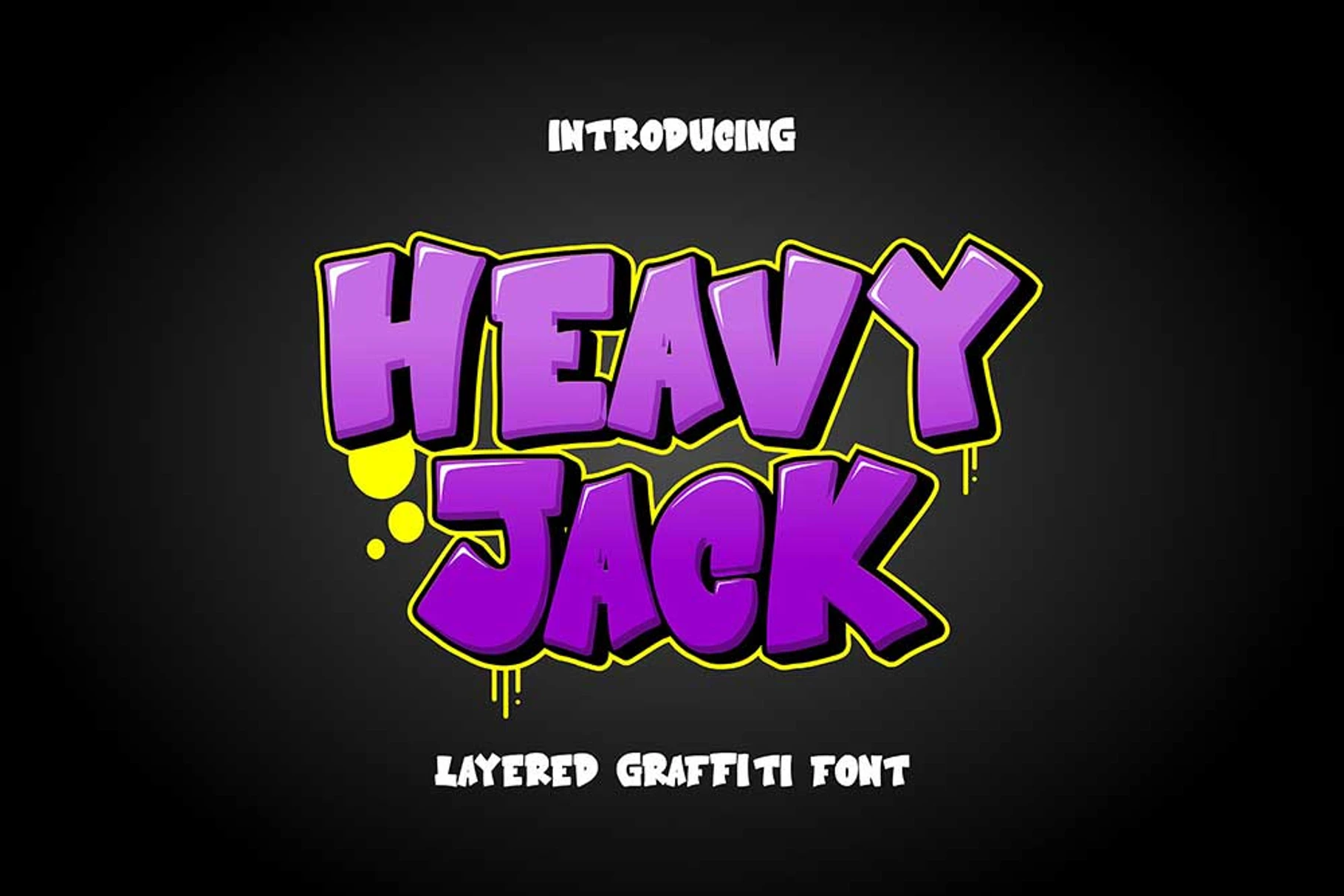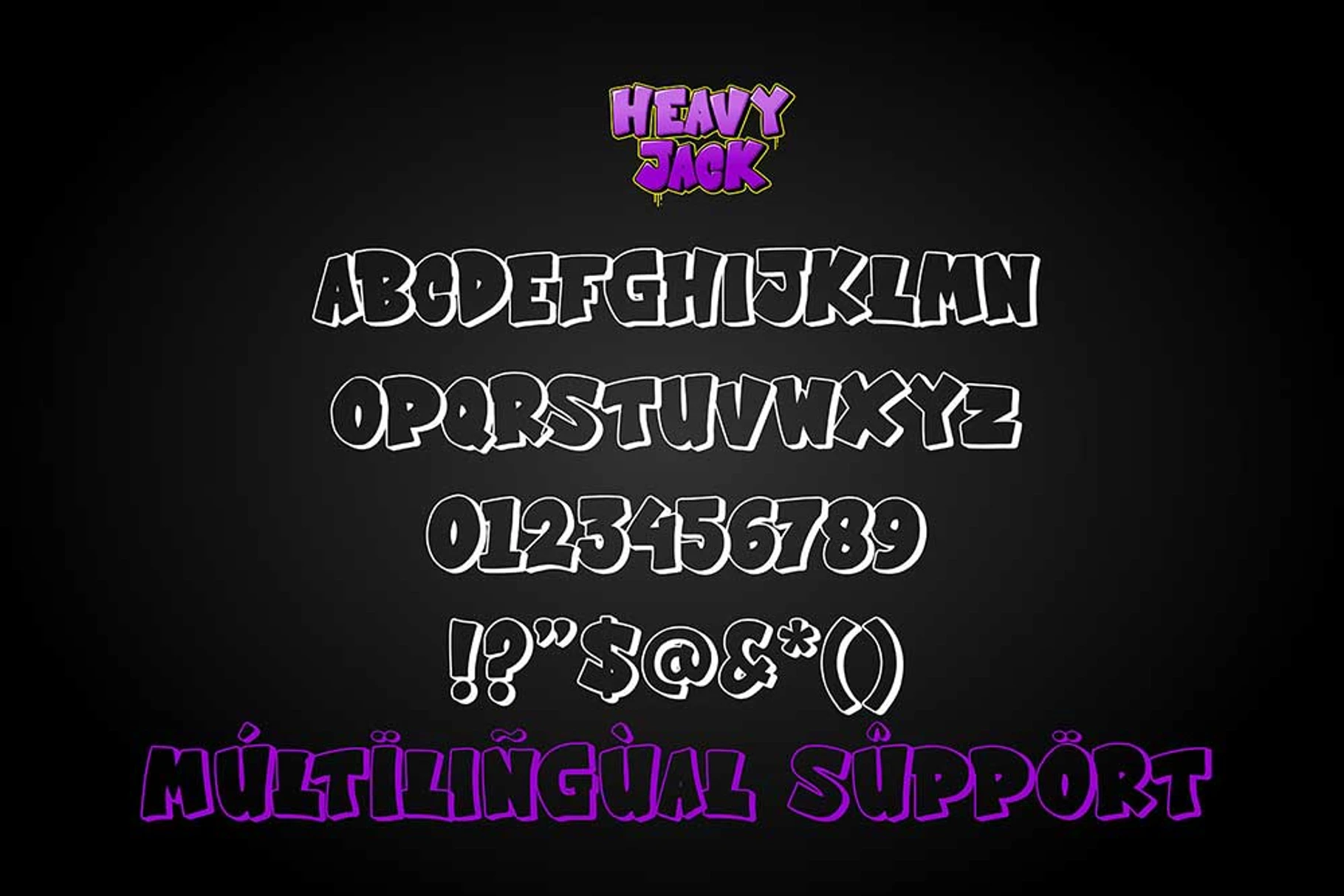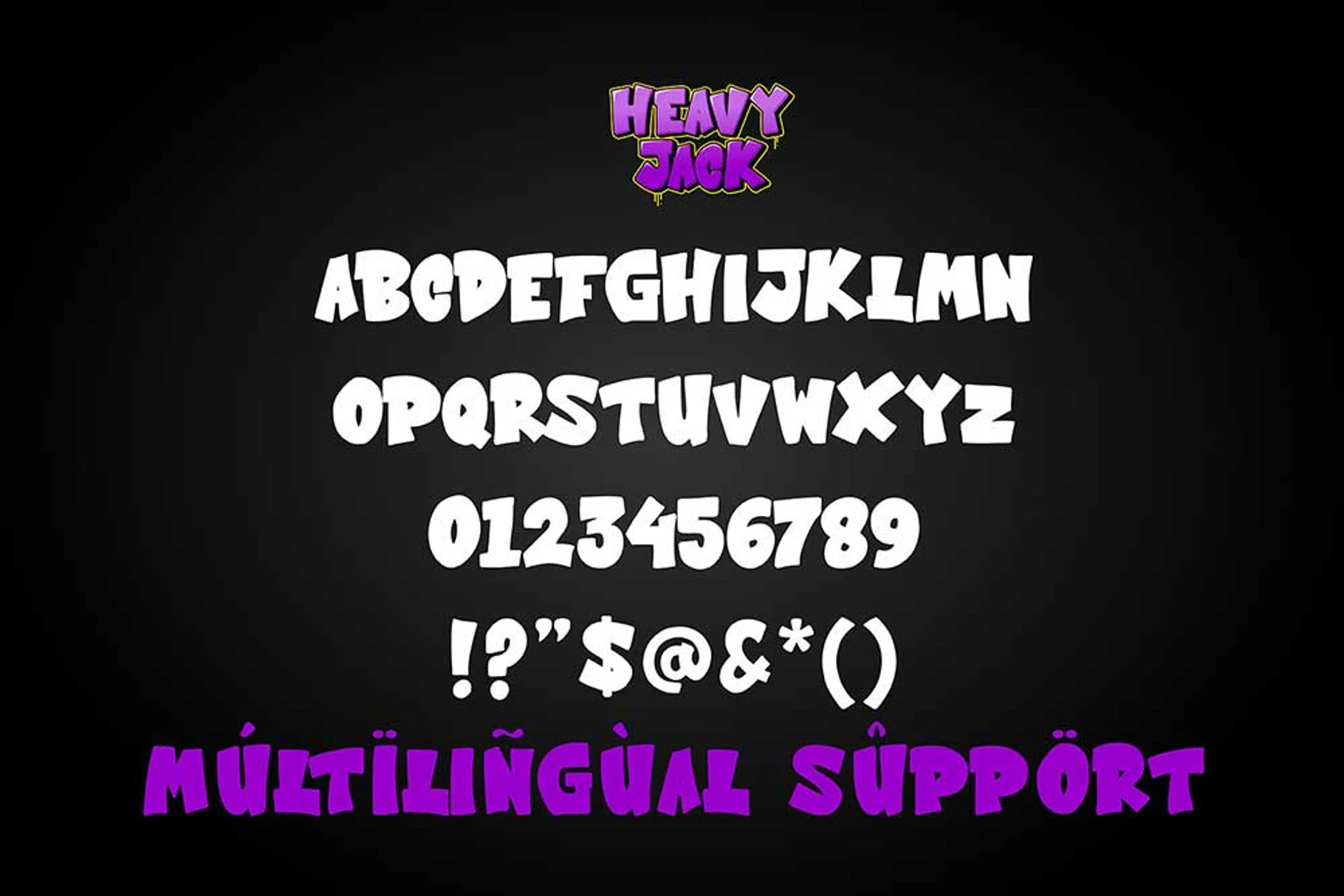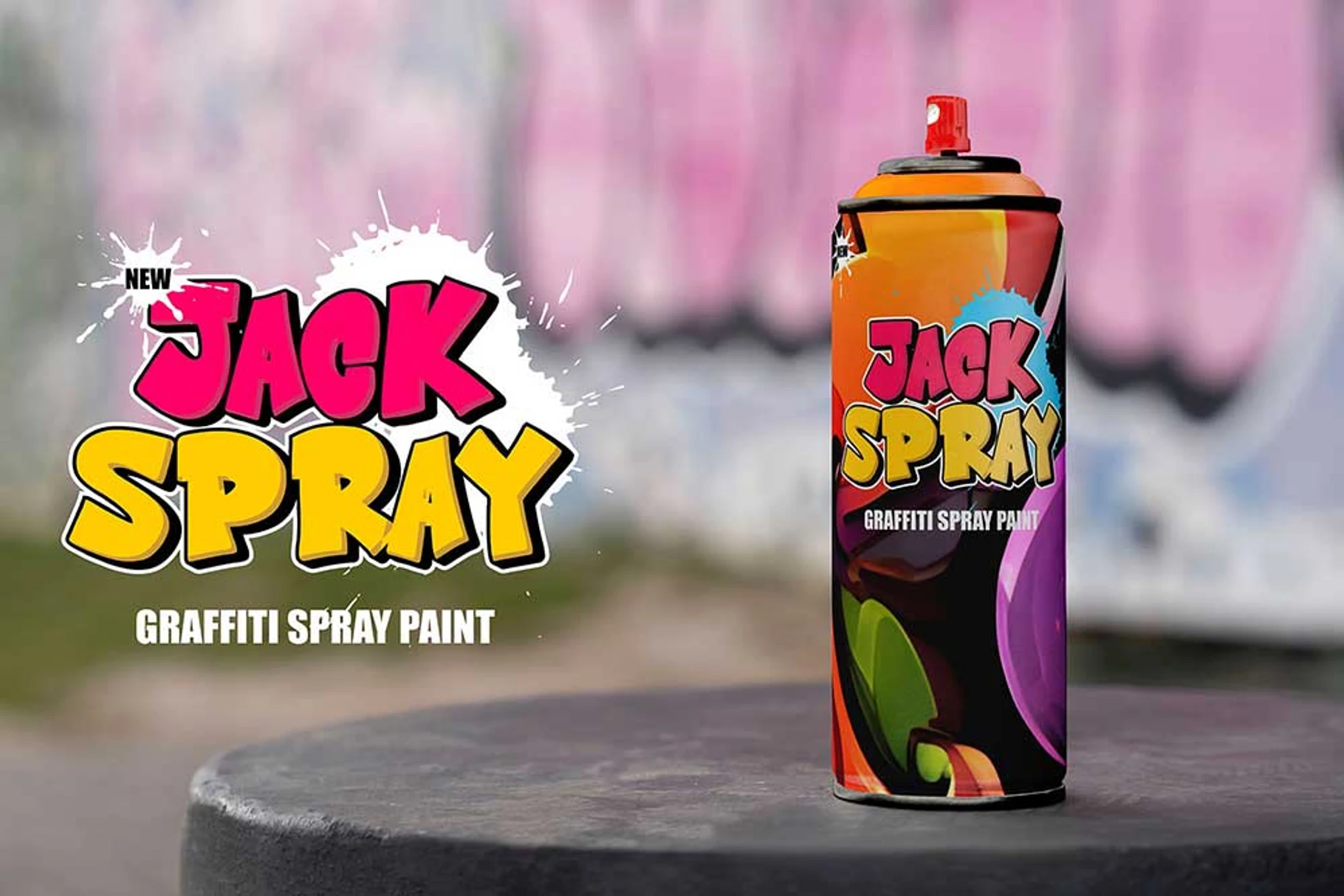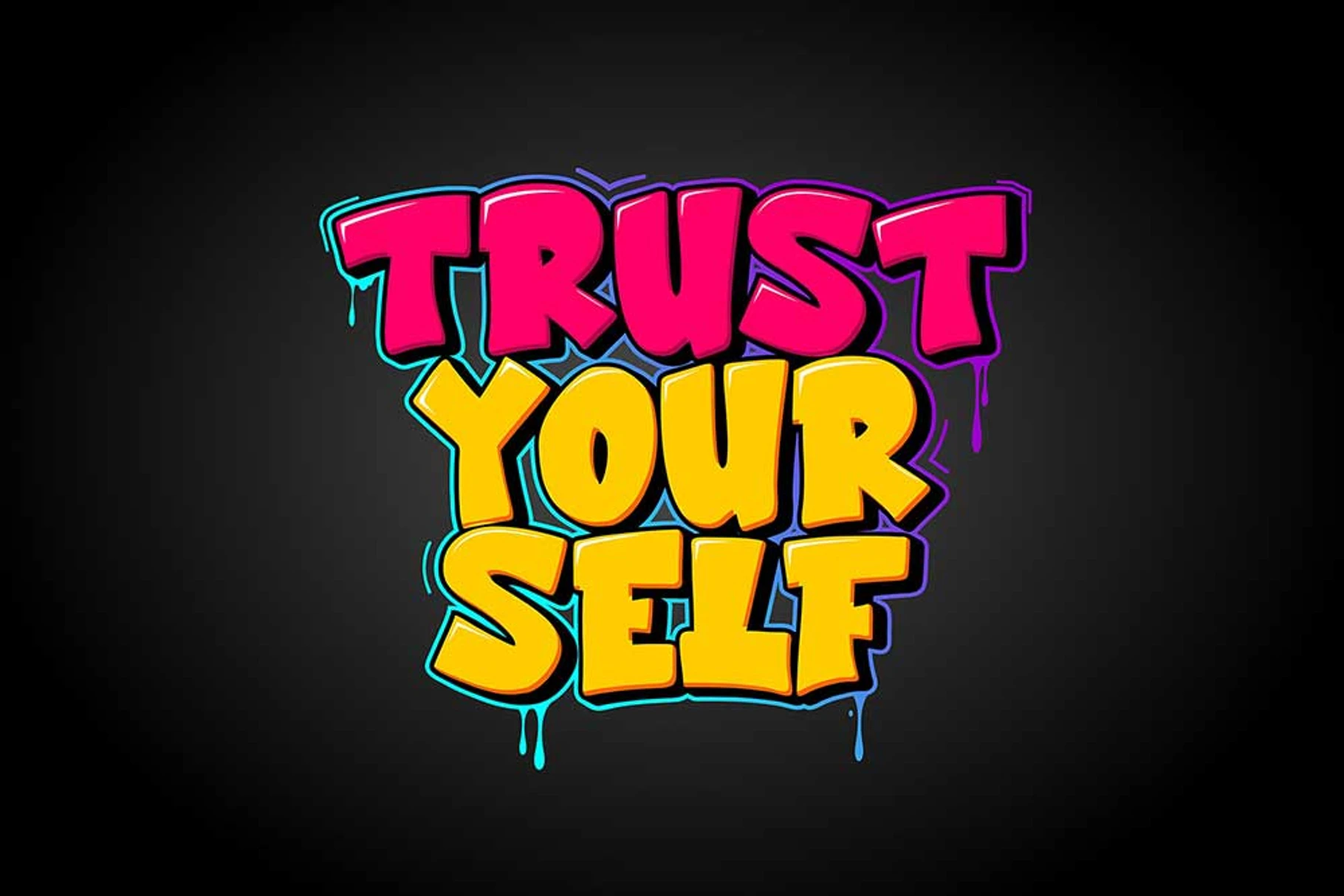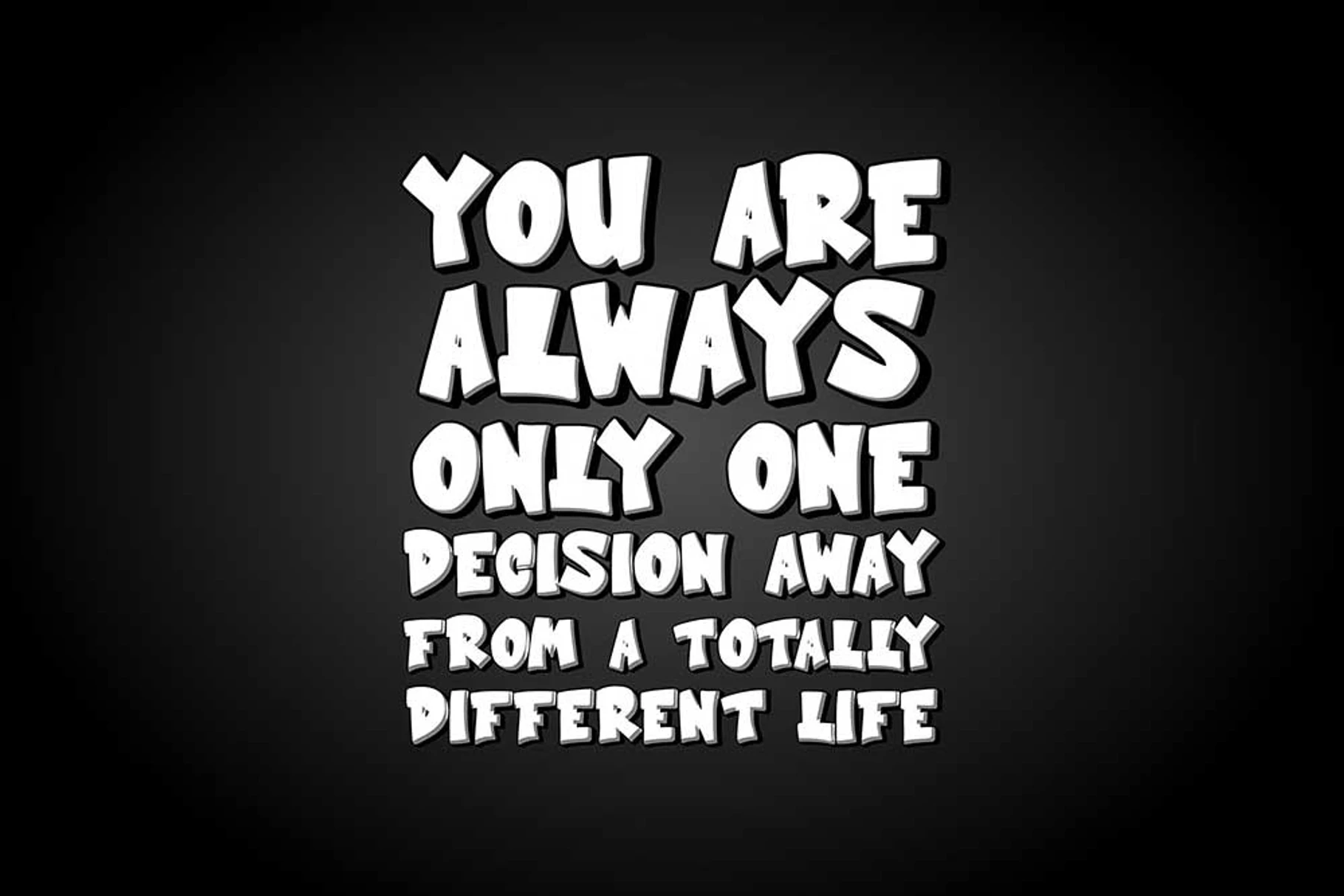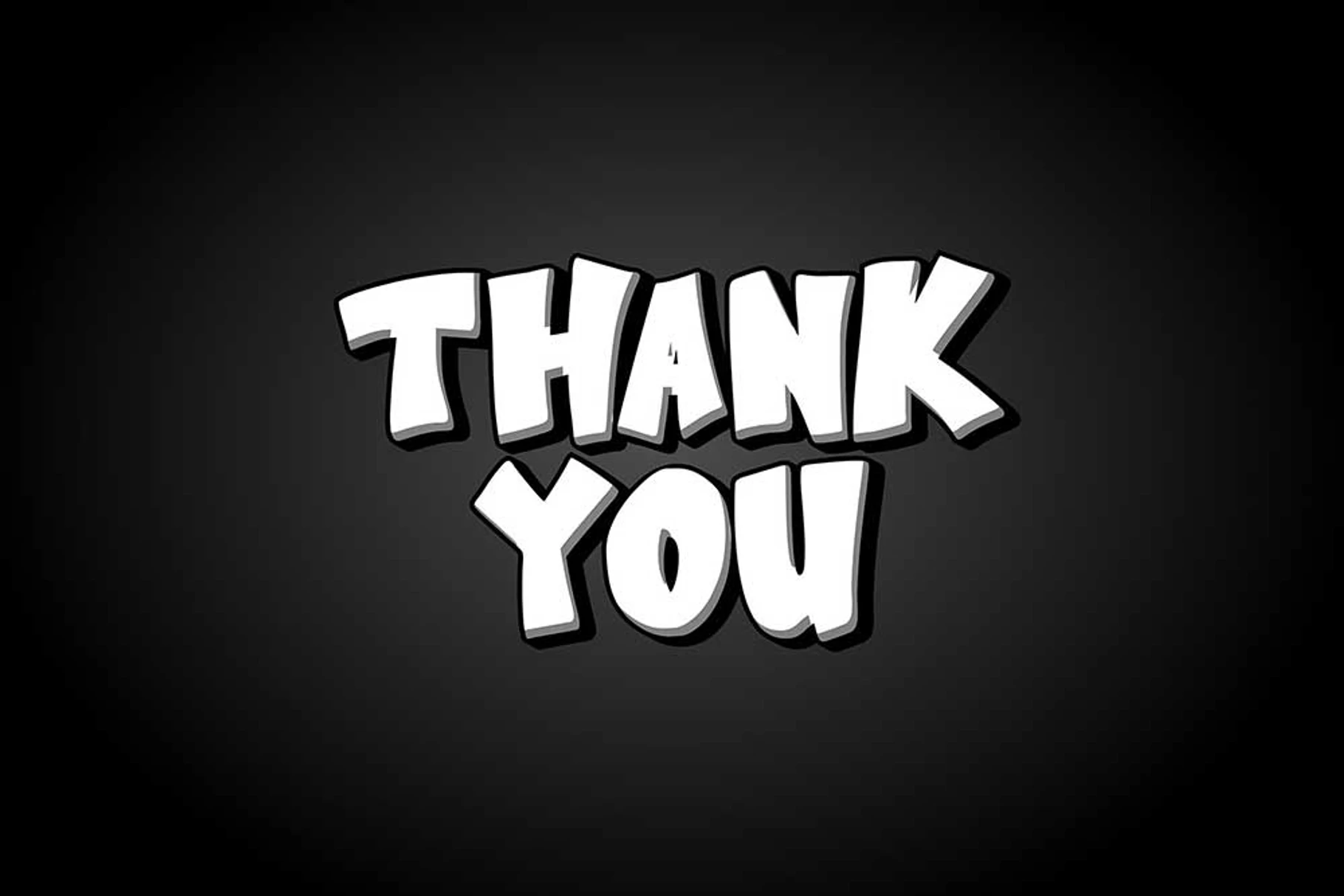
About Heavy Jack
Introducing Heavy Jack, a powerful layered graffiti font designed to bring authentic street culture, urban energy, and bold visual impact into your creative projects. Built for designers who demand attention-grabbing typography, Heavy Jack combines classic graffiti inspiration with modern display font aesthetics, creating a versatile typeface that stands out across digital and print media.
Whether you’re creating streetwear branding, album covers, gaming graphics, posters, social media content, YouTube thumbnails, merchandise, or urban-inspired advertising campaigns, this graffiti font delivers the strong personality needed to make your designs unforgettable. Heavy Jack is crafted with bold shapes, dynamic letterforms, and layered styling options that help designers create professional graffiti typography with ease.
The unique layered construction allows users to combine the main font and shadow layer for a dimensional look, making Heavy Jack an ideal choice for designers seeking a premium urban display font with maximum visual impact.
A Powerful Layered Graffiti Font for Urban Creativity
Heavy Jack is more than just another graffiti font. It is a complete typography system designed to help creators build striking urban-themed designs. Inspired by authentic street art culture, this layered graffiti font captures the energy of city walls, hip-hop aesthetics, skate culture, and contemporary urban branding.
The bold structure of Heavy Jack makes every word feel impactful and energetic. Its thick strokes and dynamic forms provide excellent readability while maintaining the rebellious spirit expected from a high-quality street style font. Whether used in large headlines or attention-grabbing promotional graphics, Heavy Jack delivers a strong visual presence that instantly commands attention.
For designers working on branding projects, Heavy Jack offers the perfect balance between creativity and functionality. The layered system allows for easy customization, helping users create unique typography compositions without requiring advanced design skills.
Designed for Modern Graffiti Typography Projects
Today’s creative industry demands fonts that are versatile, expressive, and highly memorable. Heavy Jack was created specifically to meet those needs. This graffiti display font performs exceptionally well across a wide range of design applications.
From music event posters to esports branding, from urban apparel to digital advertising, Heavy Jack provides the visual strength needed for modern creative communication. The layered effect helps transform simple text into dynamic visual elements, making it an excellent solution for projects requiring strong typography.
The font’s street-inspired design language makes it particularly effective for:
- Streetwear branding
- Urban fashion labels
- Graffiti-inspired artwork
- Album cover design
- Music festival posters
- Gaming and esports graphics
- YouTube thumbnails
- Social media promotions
- Merchandise design
- Skateboard graphics
- Hip-hop branding
- Creative advertising campaigns
Every character is carefully crafted to maximize visual impact while preserving usability, making Heavy Jack a practical choice for both professional designers and creative enthusiasts.
✓ Authentic Layered Graffiti Font
Heavy Jack includes a primary font and a dedicated shadow layer, allowing designers to create dimensional typography effects quickly and easily.
✓ Bold Urban Display Style
The strong character design makes this urban display font ideal for headlines, posters, branding, and promotional graphics.
✓ Professional Typography Construction
Every glyph is designed with attention to balance, readability, and visual impact, ensuring excellent performance across various design projects.
✓ Easy Layer Combination
Simply combine the main font and shadow font to create powerful layered effects suitable for both digital and print applications.
✓ High-Impact Letterforms
Designed specifically to help your typography stand out in crowded visual environments.
✓ Creative Flexibility
Suitable for branding, apparel, merchandise, posters, advertising, gaming projects, and social media content.
Character Support
Uppercase Characters
Heavy Jack includes a complete set of uppercase characters carefully designed to maintain a bold and consistent graffiti aesthetic throughout your typography compositions.
Multilingual Support
This graffiti font includes multilingual support, helping designers create international projects with broader language compatibility and professional usability.
Heavy Jack isn’t simply a font—it’s a creative tool built to help designers transform ordinary text into extraordinary visual statements. If you’re searching for a bold graffiti font, an eye-catching urban display font, or a professional street style typeface capable of elevating your designs, Heavy Jack is ready to become your next typography essential.